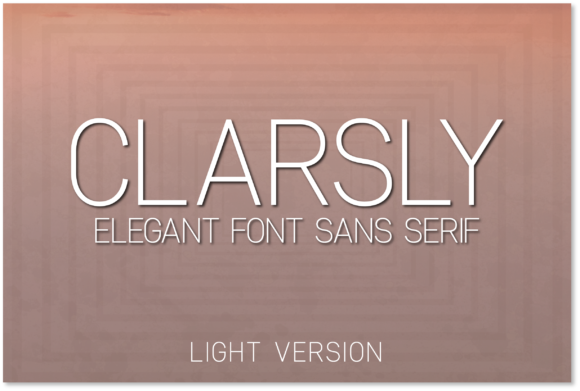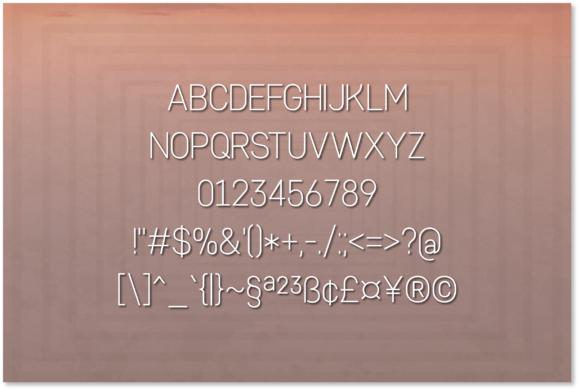
HomeSans Serif FontsClarsly Light Font Sans Serif Fonts Clarsly Light Font FacebookXPinterestWhatsApp Clarsly Light Font 1 of 2 About Clarsly Light Font Clarsly is minimalist and modern, but also elegant. This versatile sans serif font has a wide range of applications ranging from body text to headlines, and is guaranteed to add a timeless touch to your next design. DOWNLOAD NOW People also explored Funtastic Script Font Alligator Font Roslyta Font Saffron Font Kempoka Remember Font Highland Font Dolce Caffé 3d Candy Font 527 0 TagsClarsly Light Font Previous articleClarsly Extra Light FontNext articleClarsly Font LEAVE A REPLY Cancel reply Comment: Please enter your comment! Name:* Please enter your name here Email:* You have entered an incorrect email address! Please enter your email address here Website: Save my name, email, and website in this browser for the next time I comment. Personal Use Free Straighler Personal Use Free Read more about this font Amellis Path Personal Use Free Read more about this font Bajt Rounded Personal Use Free Read more about this font Hello Ketta Personal Use Free Read more about this font BLOG Free Fonts Risk: Why Free Fonts Can Be Dangerous for Designers Free Fonts Risk: Why Free Fonts Can Be Dangerous for Designers Using free fonts is a common practice in web and graphic design. However, the... 5 Fonts That Will Dominate Design Trends in 2026 To increase your work productivity, choose the most readable fonts. Transform Your Website: Elevate Your Typography with 7 Best Web Font Generators